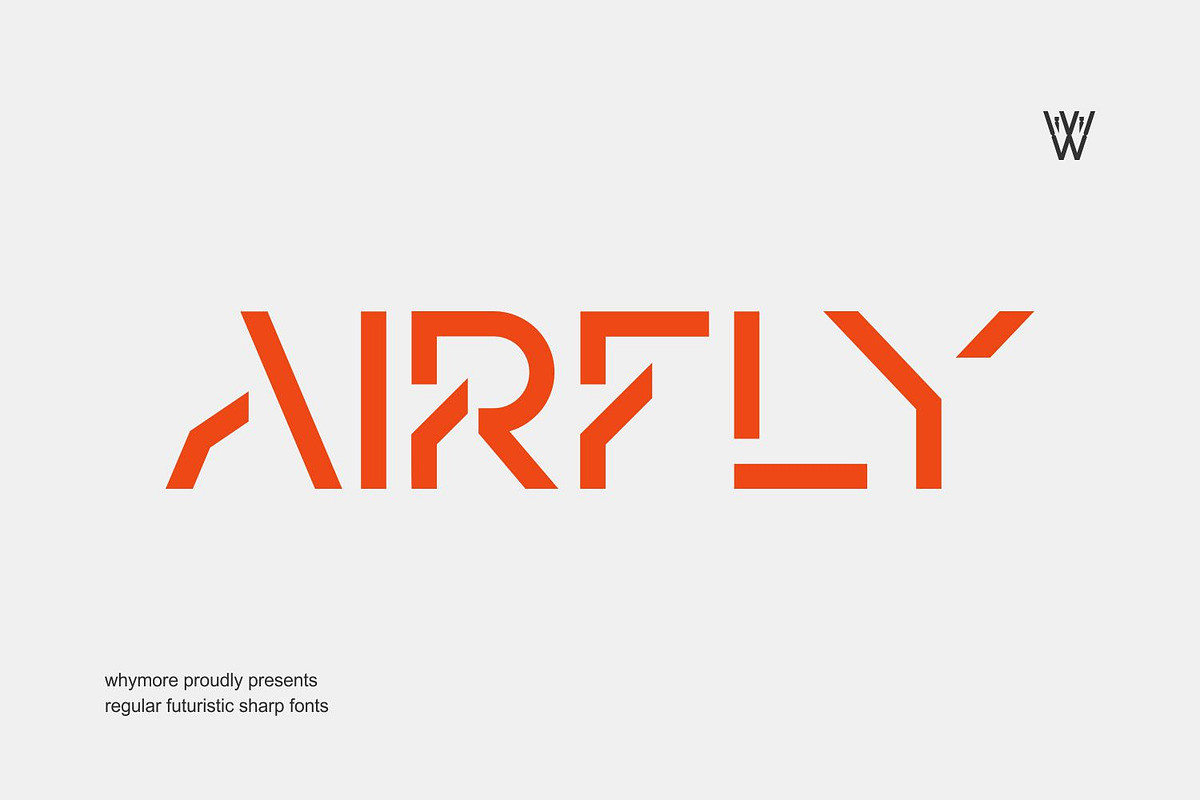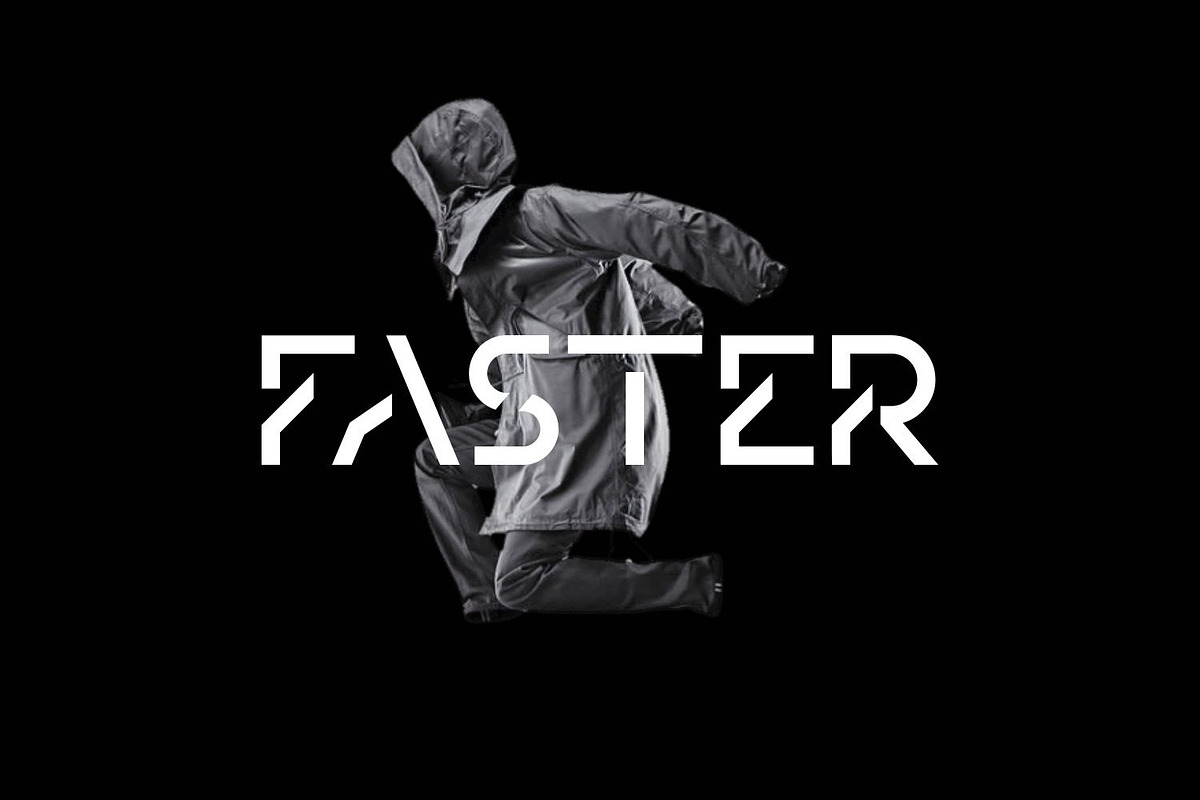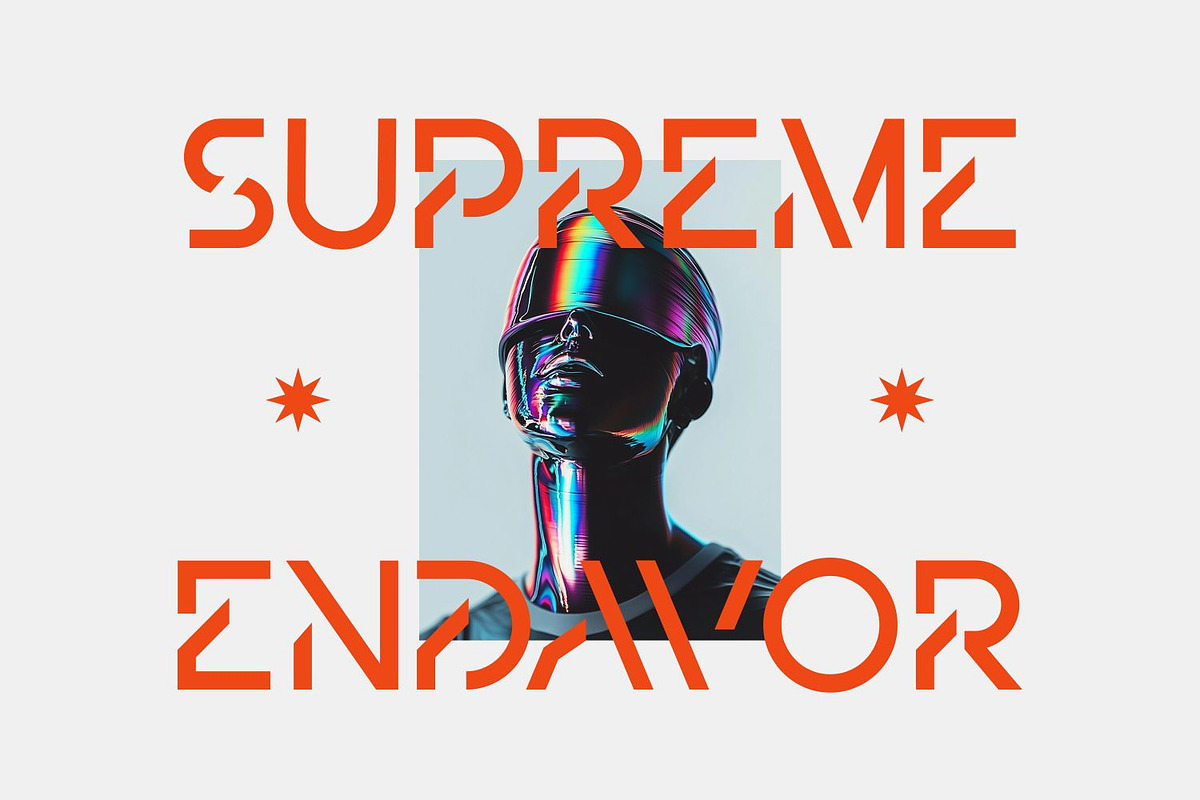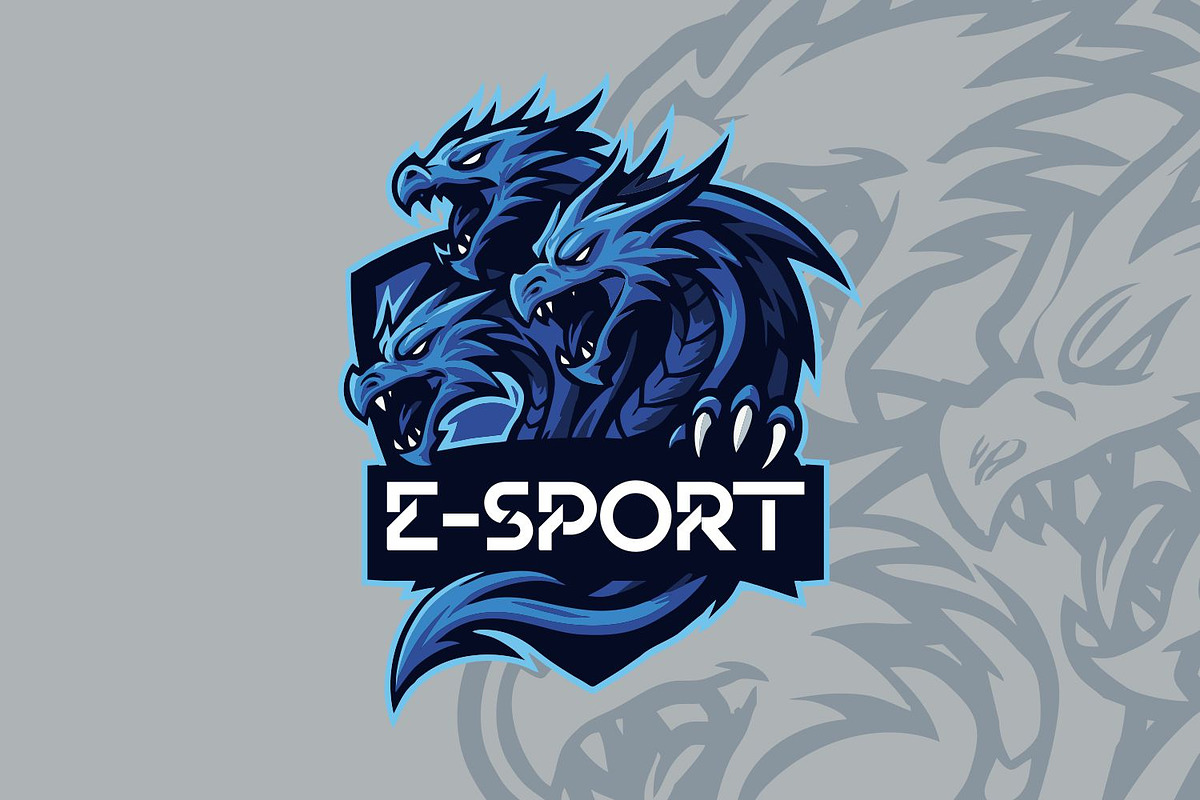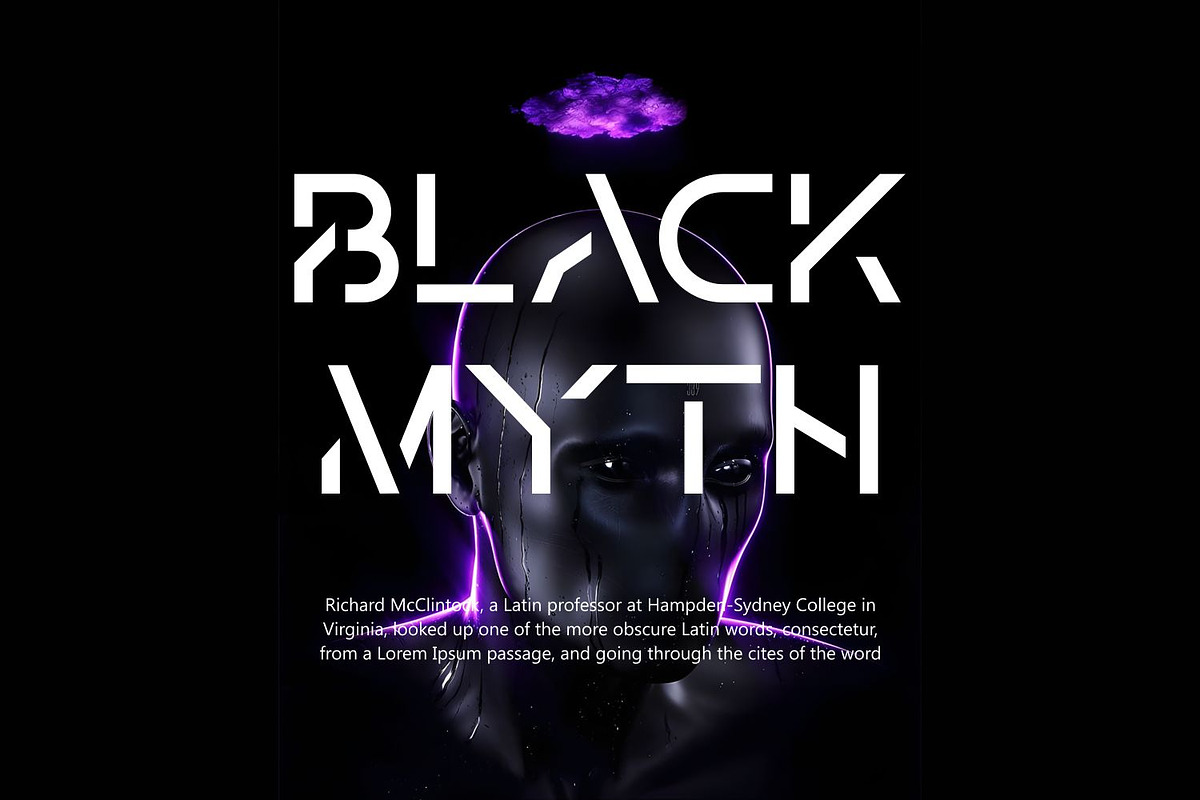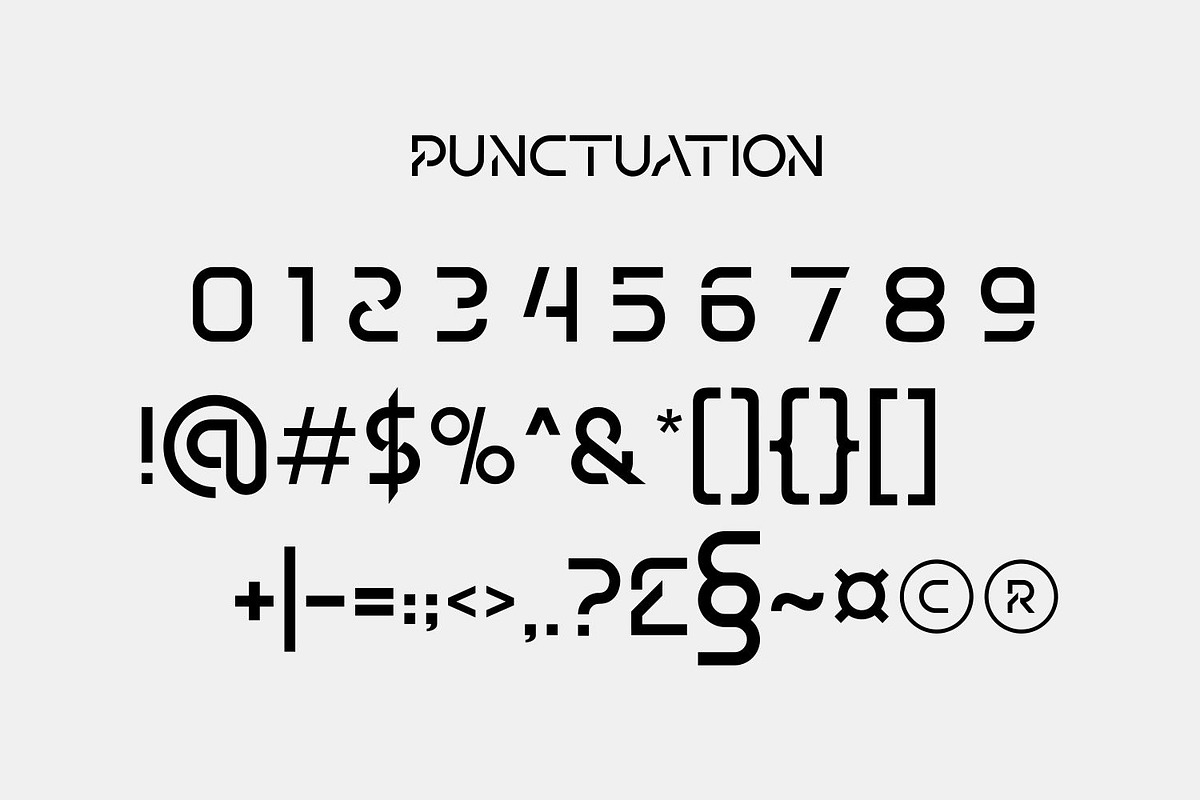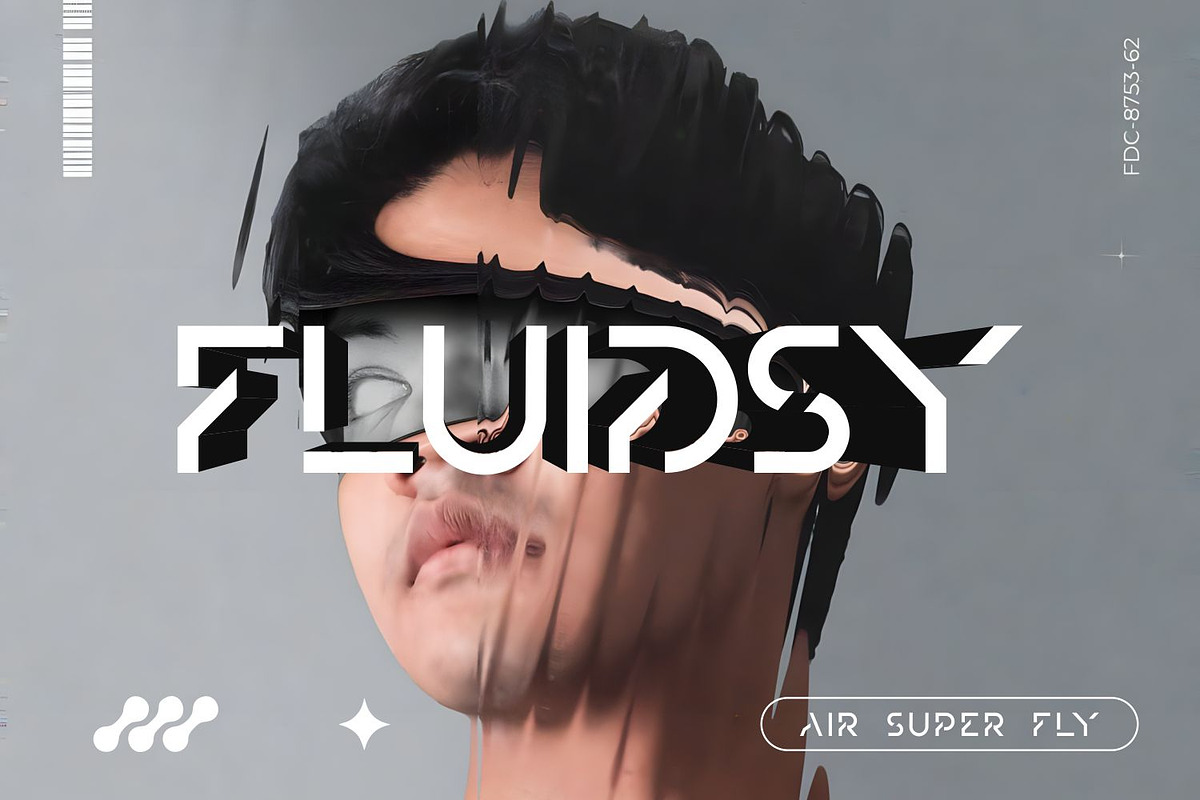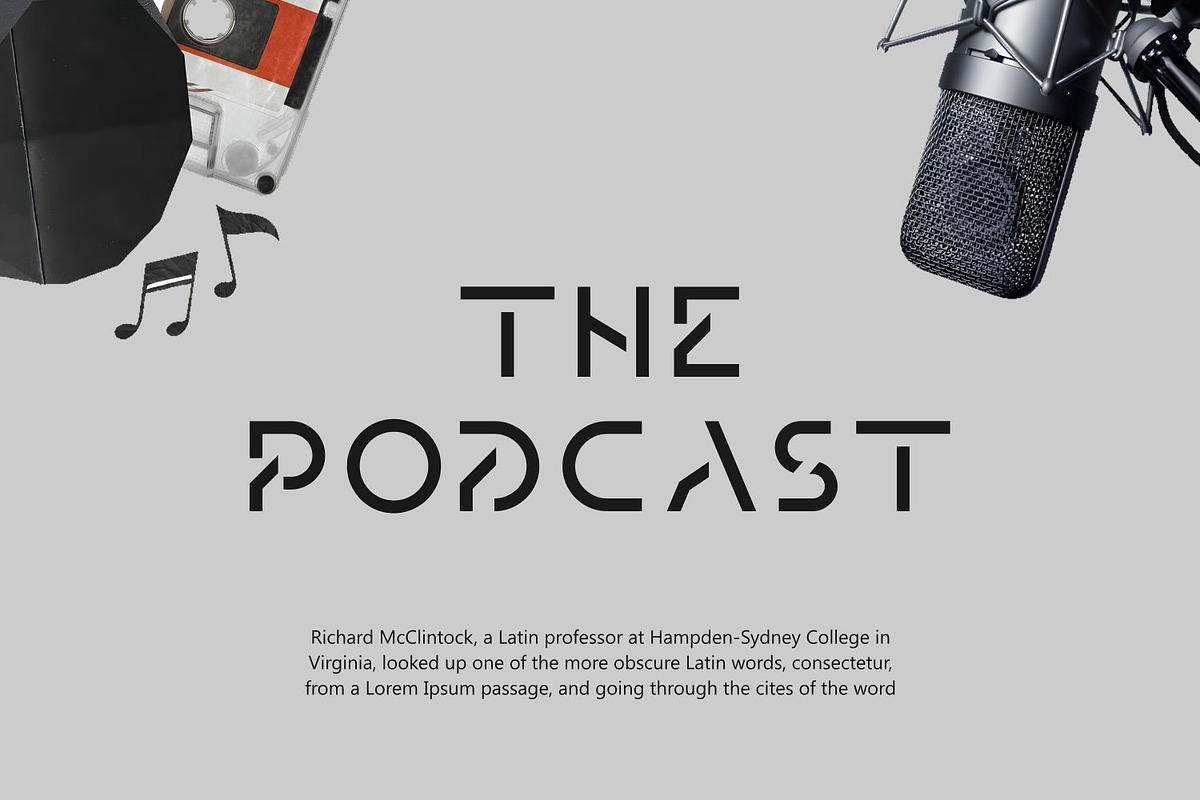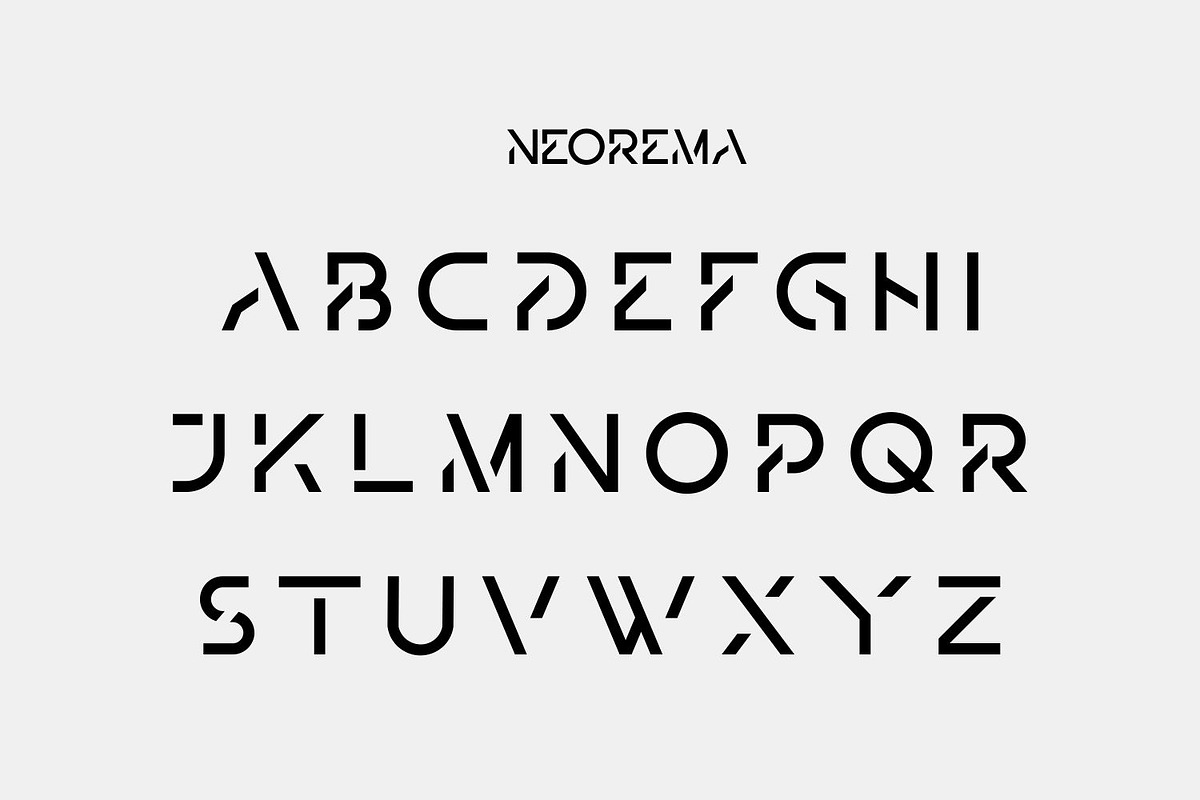
Airfly Futuristic Geometric Font
Airfly is a futuristic geometric font with bold, clean, and modern characters designed specifically for digital branding needs. With its bold condensed sans serif letterforms, this font conveys a sense of technology, innovation, and visual power that is perfect for creating a standout identity.
As a designer, you need a versatile font that can instantly enhance the value of your work. Airfly is not just a futuristic font, but a relevant visual communication tool for:
Logo Design & Branding – Suitable for technology logos, esports logo fonts, and modern corporate identities.
Stationery & Mockups – Provides a bold display on stationery mockups or design presentations.
Digital & Creative Content – Ideal as a Canva font, social media design, poster, or banner that wants to stand out.
Futuristic Projects – Bringing a space font vibe, Y2K style, techno vibe, and futuristic typeface that stands out.